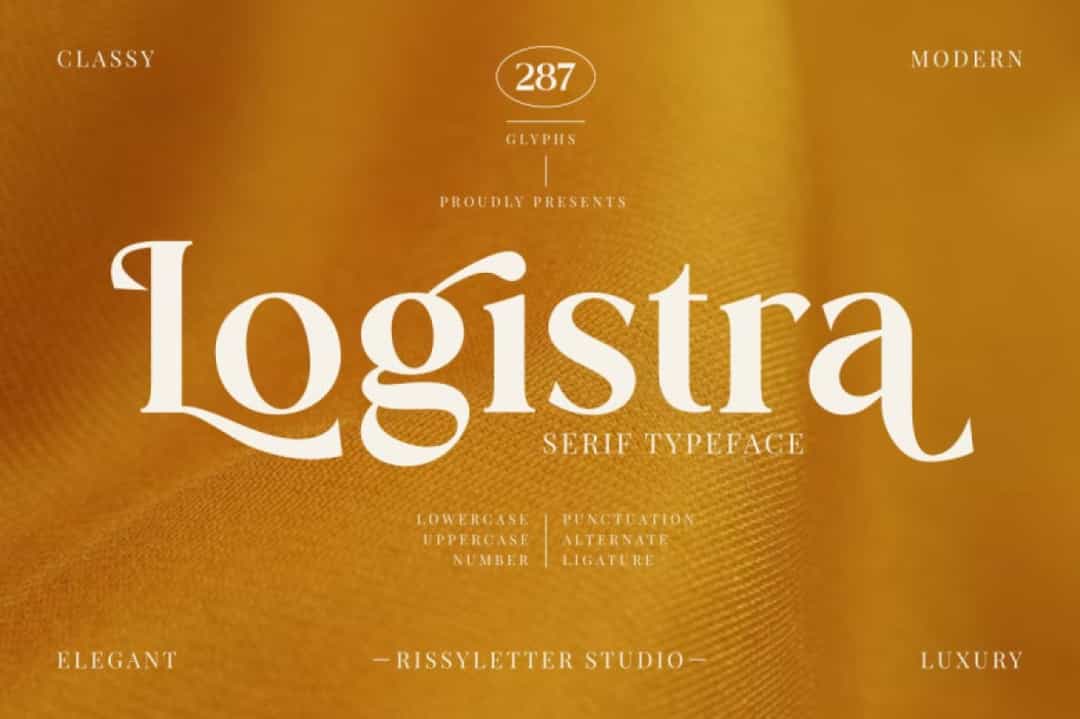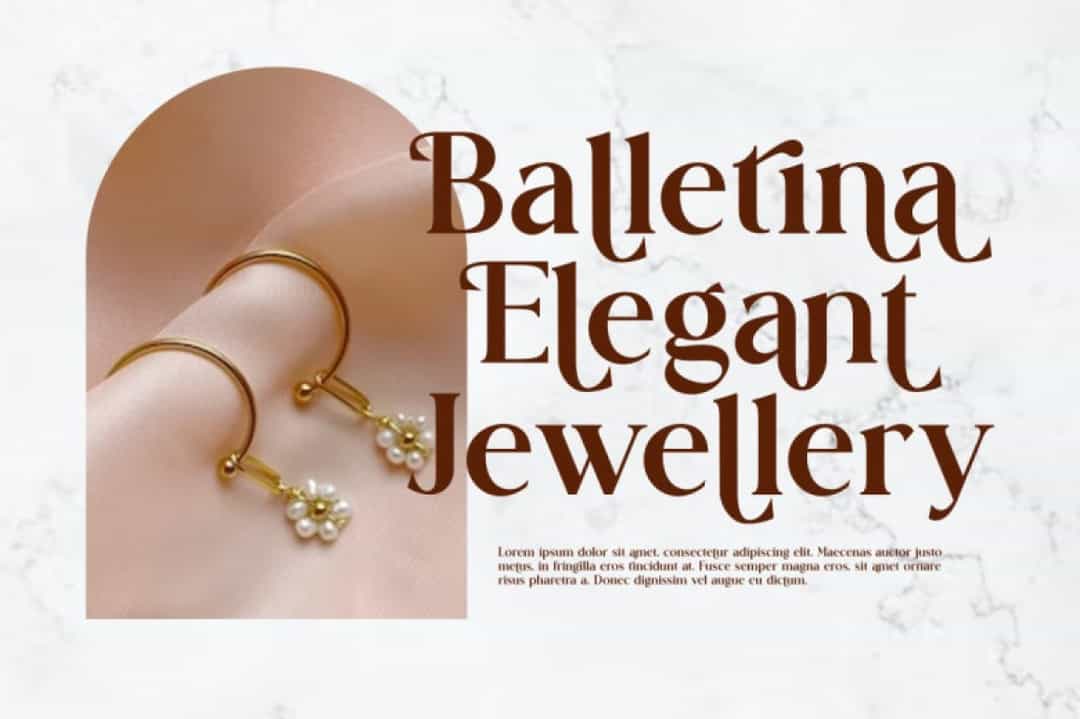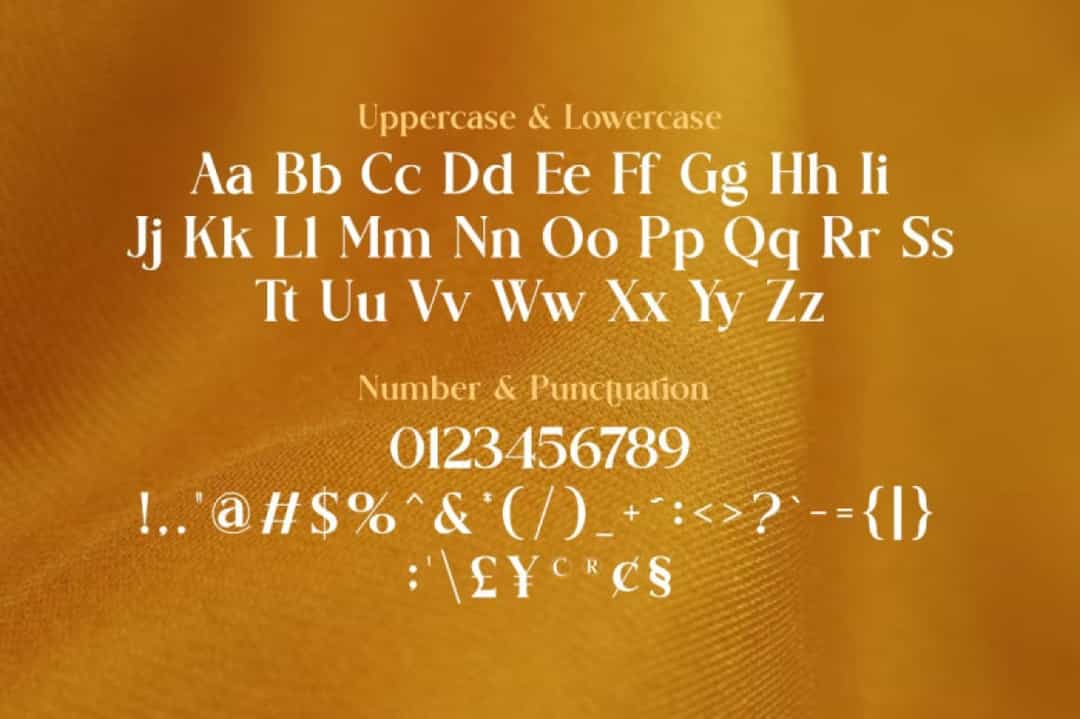
Logistra typeface is an elegant serif font featuring thin and thick strokes that stand out in each letter glyph. Constructed using straight lines and smooth curves, Logistra font appears both professional and elegant when used for typography projects. There is an array of letters and ligatures available that can make your typography visually striking and eye-catching.